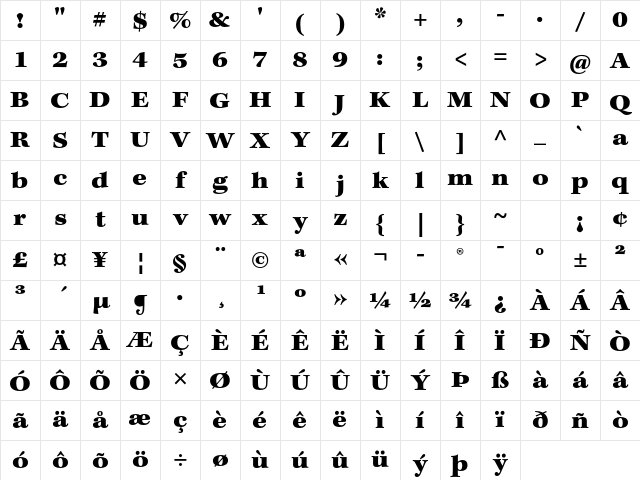
Kepler Std Black Extended Caption
Style: Black Extended Caption
Design Context for Kepler Std
Kepler Std is a composed and adaptable typeface that performs quietly and consistently across a wide range of design contexts.
Pro Tip: Use Kepler Std in both headline and body roles to test its range before committing to a single application.